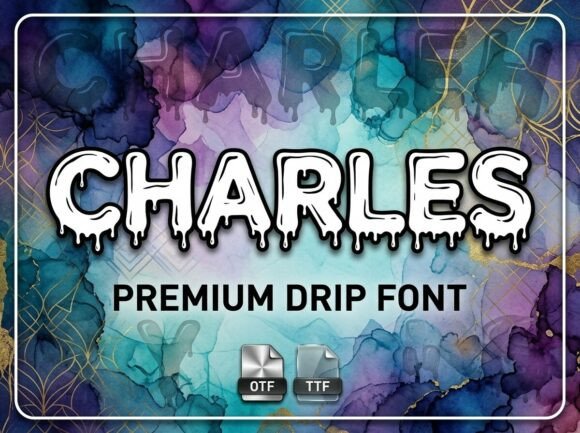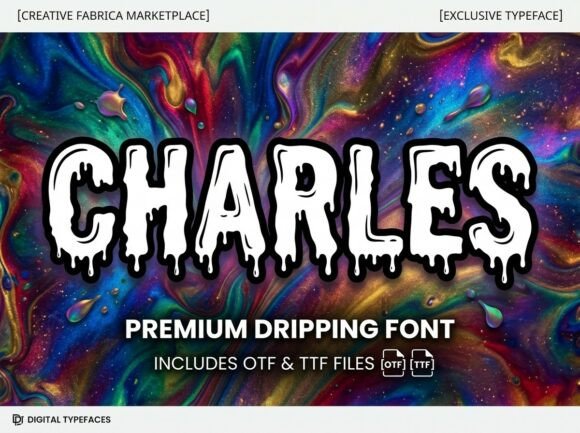
Introducing Charles Font: A Stunning Decorative Display Font
Are you tired of using the same old fonts for your designs? Look no further than Charles Font, a unique and artistic display font that’s sure to turn heads. With its strong visual personality and decorative elements, this font is perfect for creators who want to add a touch of elegance and sophistication to their work.
Charles Font is a decorative display font designed to be the center of attention. Its unique artistic elements and strong visual personality make it perfect for bold headlines, artistic logos, and creative packaging. Whether you’re a designer, craftsperson, or simply someone who loves to create, this font is sure to help you stand out from the crowd.
One of the best things about Charles Font is its versatility. It’s perfect for a wide range of design projects, from bold headlines and artistic logos to creative packaging and more. And with its professional and polished finish, you can use it with confidence, knowing that your designs will look great on any device or platform.
This means that Charles Font is perfect for designs where you want to make a bold statement, but it’s not suitable for body text or other applications where lowercase letters are necessary.
Charles Font is perfect for designers and crafters who want to add a touch of elegance and sophistication to their work. Whether you’re creating:
- Logos and branding materials – Charles Font is perfect for creating unique and memorable logos that will help your brand stand out.
- Headlines and titles – This font is designed to grab attention and make a statement, making it perfect for headlines and titles.
- Packaging and product design – Charles Font is perfect for adding a touch of elegance and sophistication to your packaging and product design.
- Artistic projects – This font is perfect for artists and crafters who want to add a touch of personality and style to their work.
Why Choose Charles Font?
There are many reasons why you should choose Charles Font for your design projects. Here are just a few:
- Unique and artistic design – Charles Font is a one-of-a-kind font that’s sure to turn heads.
- Versatile – This font can be used for a wide range of design projects, from logos and headlines to packaging and more.
- Professional and polished finish – Charles Font has a professional and polished finish that’s perfect for designs where you want to make a good impression.